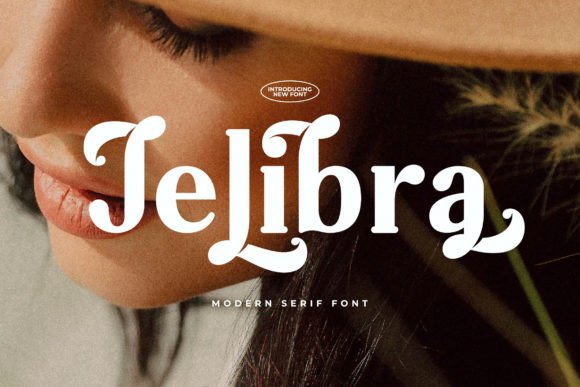
Step into a world of elegance and charm with Jelibra Font, a creation of Storytype Studio, designed to transform your creative visions into stunning realities. This sophisticated serif font, adorned with a touch of fashion-forward flair, invites you on a journey through the realms of luxury, elegance, and femininity.
Indulge in the artistry of Jelibra, meticulously crafted to elevate your designs with a modern, chic aesthetic. Its graceful curves and refined strokes evoke a sense of timeless beauty, while its sharp serifs add a touch of contemporary edge. Experience the allure of Jelibra, a font that effortlessly blends tradition with innovation, making it the perfect choice for projects that demand an air of sophistication.
Unleash your creativity with Jelibra, a font that knows no bounds. Whether you're crafting logos that exude luxury or designing invitations that radiate elegance, Jelibra rises to the occasion, delivering exceptional results every time. Its versatility extends to branding materials, social media graphics, and website designs, making it the go-to choice for designers seeking a font that commands attention.
Immerse yourself in the world of Jelibra, where imagination meets artistry. This remarkable font is a tribute to the power of typography, capable of transforming ordinary words into captivating expressions. Its ability to evoke emotions and convey messages with grace and eloquence makes it an ideal choice for projects that aim to leave a lasting impression.
With Jelibra Font, embark on a creative odyssey where your designs take center stage. Its timeless appeal and modern sensibility make it a font that stands the test of time, ensuring your projects remain captivating and relevant for years to come. Embrace the allure of Jelibra and witness the transformative power of typography as it elevates your designs to new heights of sophistication and beauty.